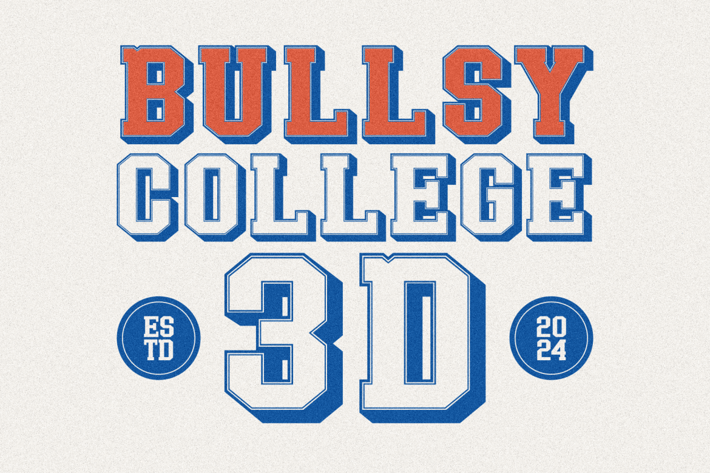
Bullsy College 3D Font
Introducing Bullsy College 3D is the latest addition to the Bullsy College font family. This font features a 3D slab style, giving it a bold and dynamic visual impact that captures attention. Staying true to its roots, Bullsy College 3D belongs to the Old School category, evoking a classic and nostalgic feel reminiscent of vintage collegiate themes. For those interested in exploring more from the Bullsy College family, feel free to visit my page for additional options and styles.